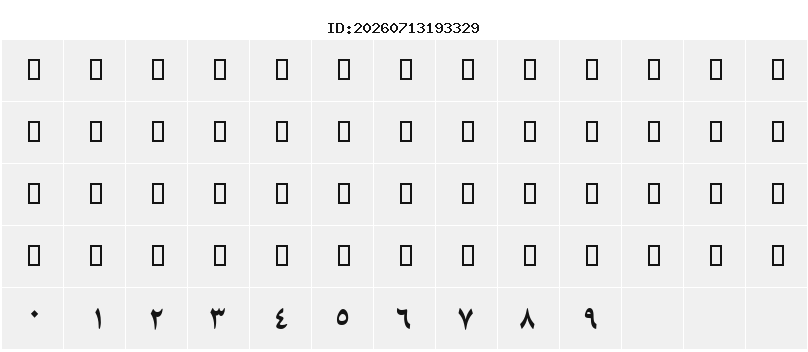
• Font Name: B Zar
• Font ID: Borna Zar Bold
• Full Font Name: B Zar Bold
• Version: Version 2.01 - Build 1379
• PostScript Name: BZarBold
• Character Count: 288
• Copyright: (c) 2000 Borna Rayaneh
About B Zar.ttf
B Zar.ttf is a modern, elegant sans-serif font designed for ultimate readability and visual harmony. Perfect for branding, headlines, web design, and print materials.